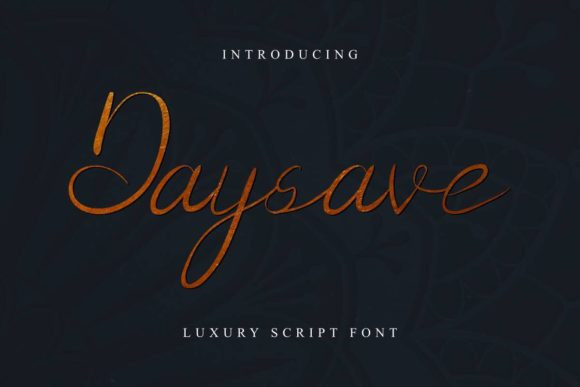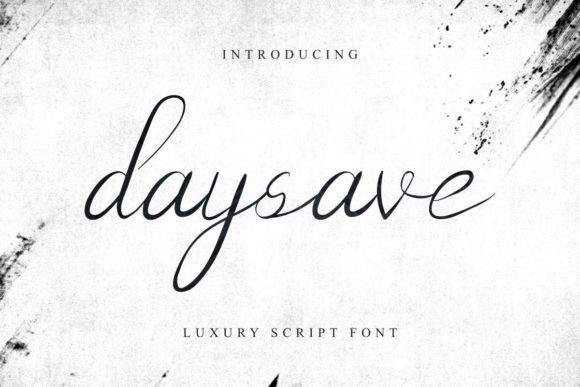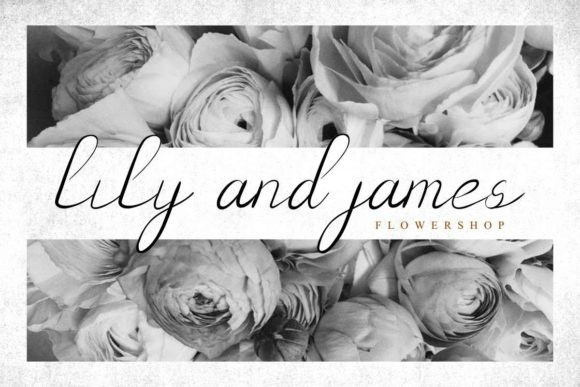
Daysave Font
Daysave is a gorgeous, round lettered handwritten font. It feels both elegant and relaxed. It looks stunning on wedding invitations, thank you cards, quotes, greeting cards, logos, business cards and every other design which needs a handwritten touch.